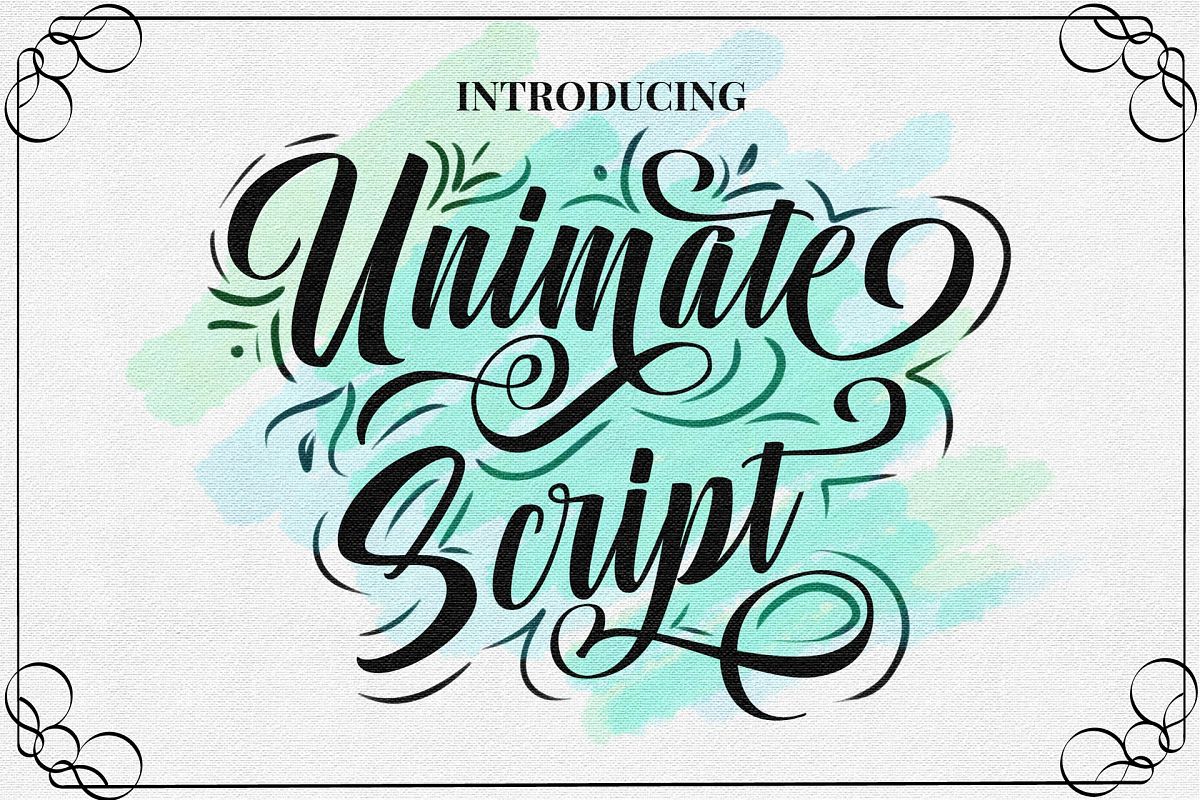
Unimate Script
Introducing our new product the name is Unimate Script
including 2 variation font, Script style and Clipart for Bonuses Bonuses,
the Script font is made by Crayola Brush pen, and Manually Carefully Trace to give Smooth Fonts.
this font is a fun theme very good for Logo, poster, fashion, Quote, wedding, branding, etc